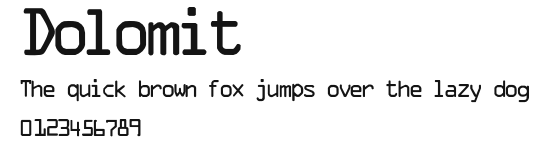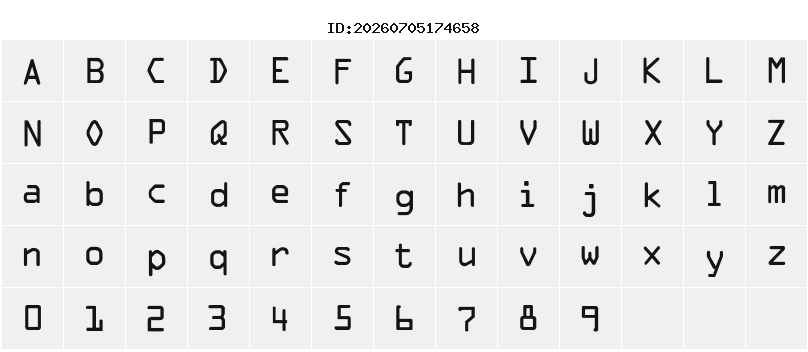
About Dolomit.otf
Dolomit.otf is a modern, elegant sans-serif font designed for ultimate readability and visual harmony. Perfect for branding, headlines, web design, and print materials.